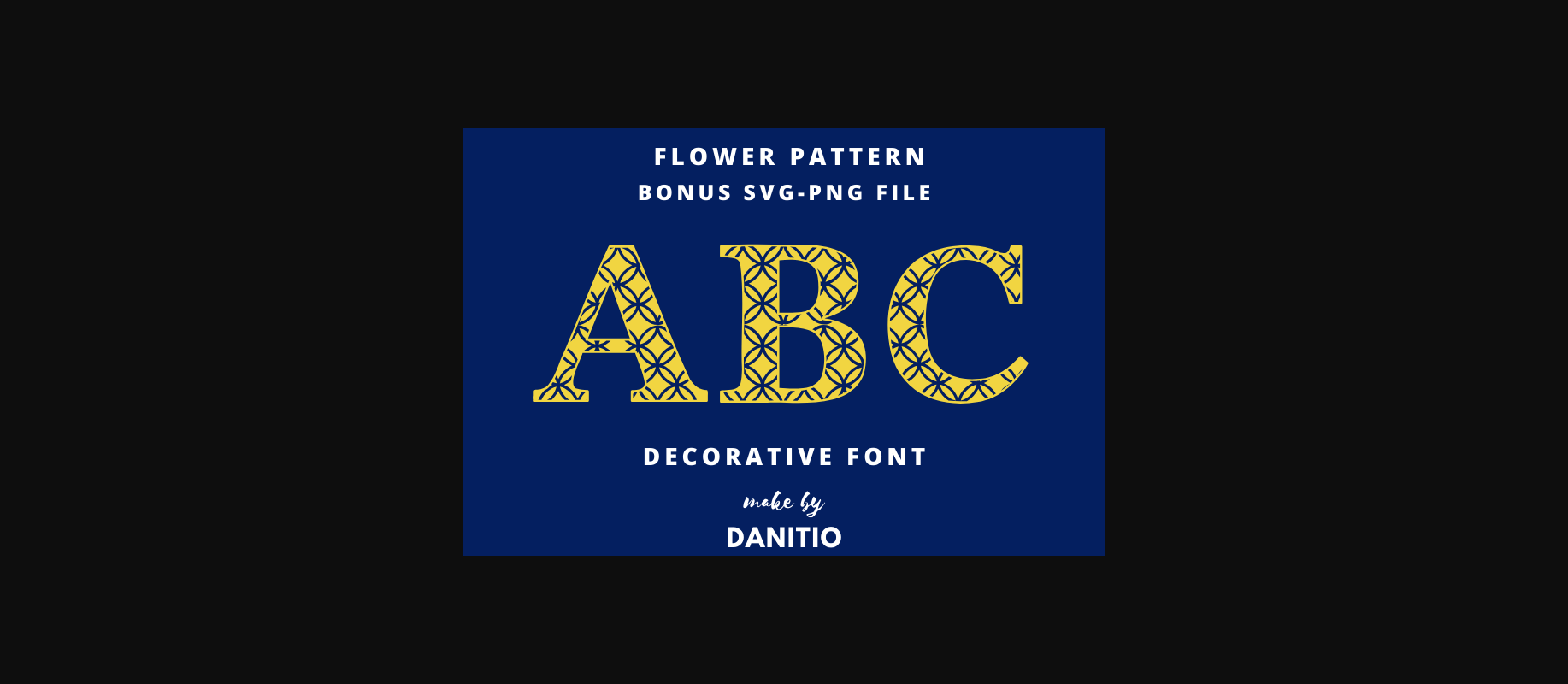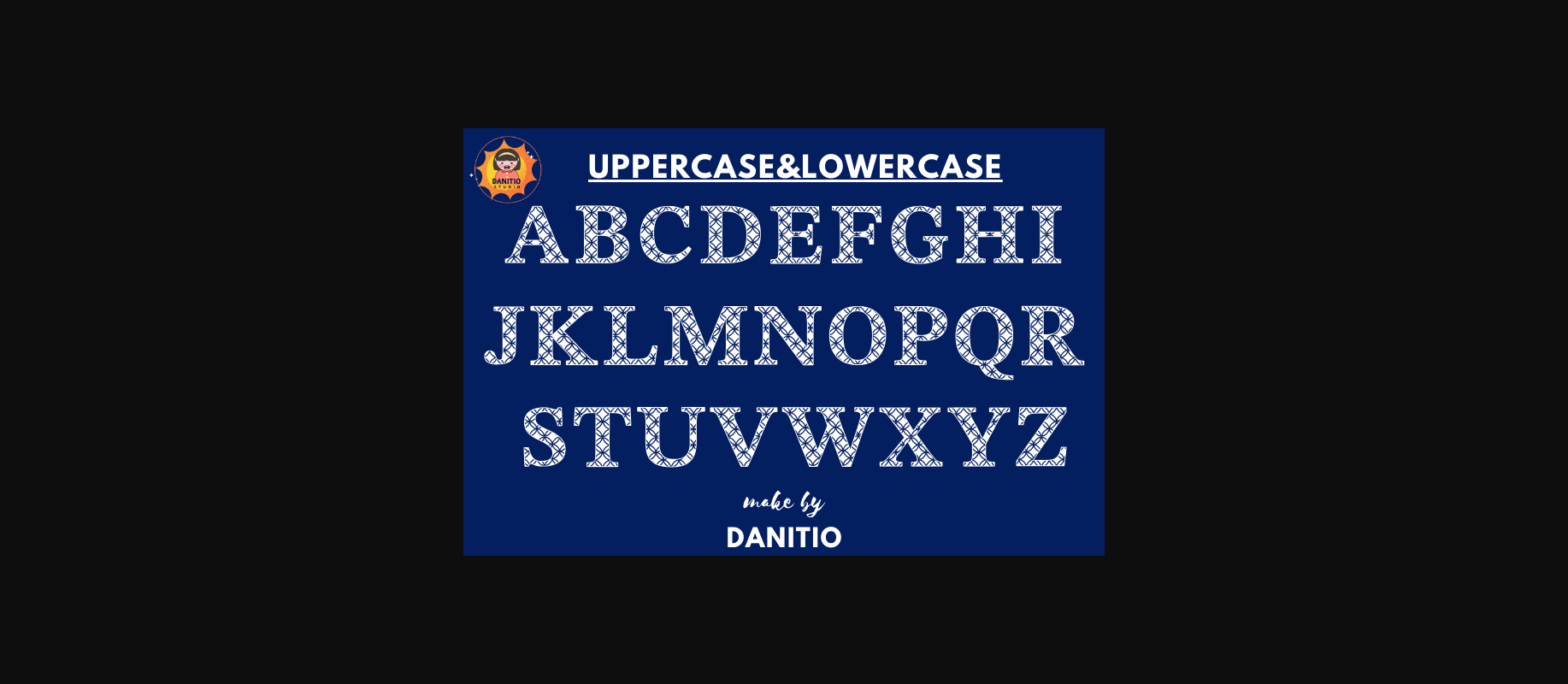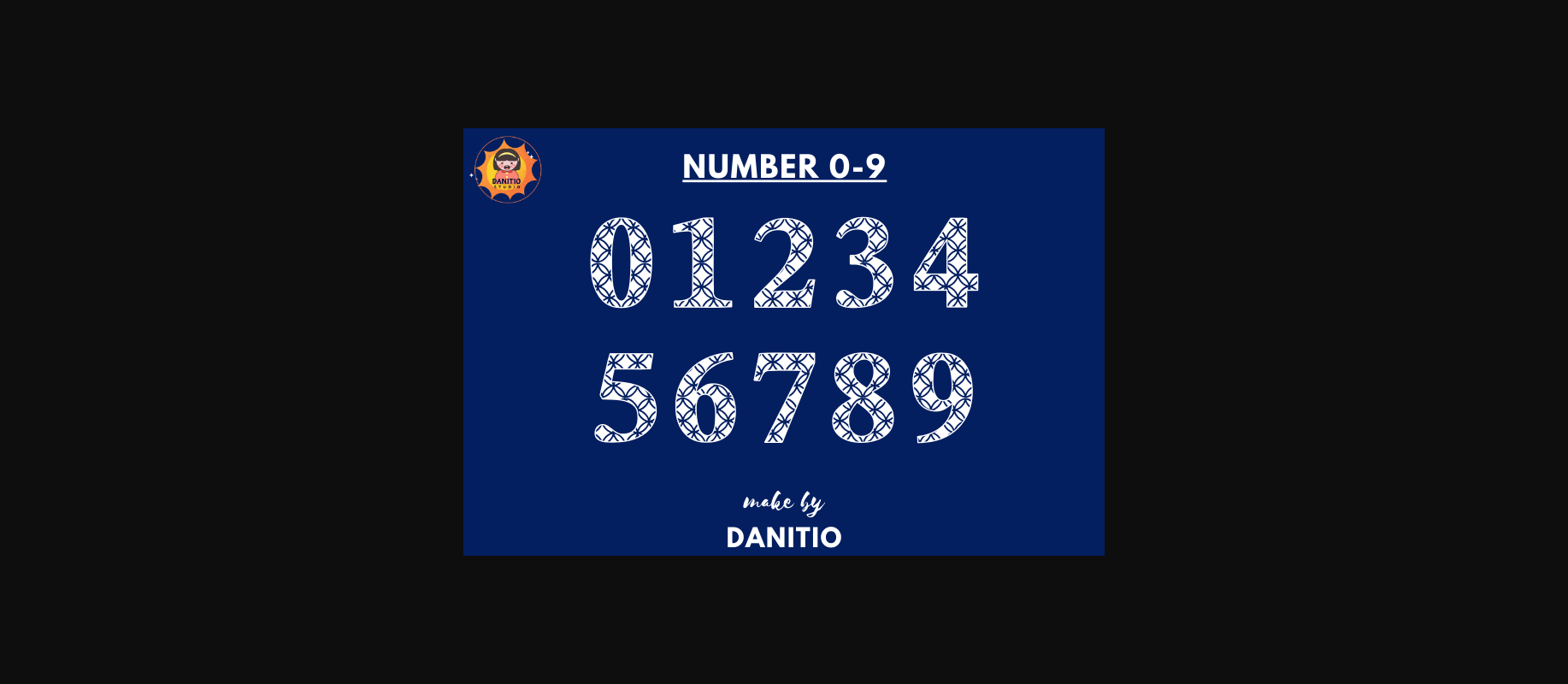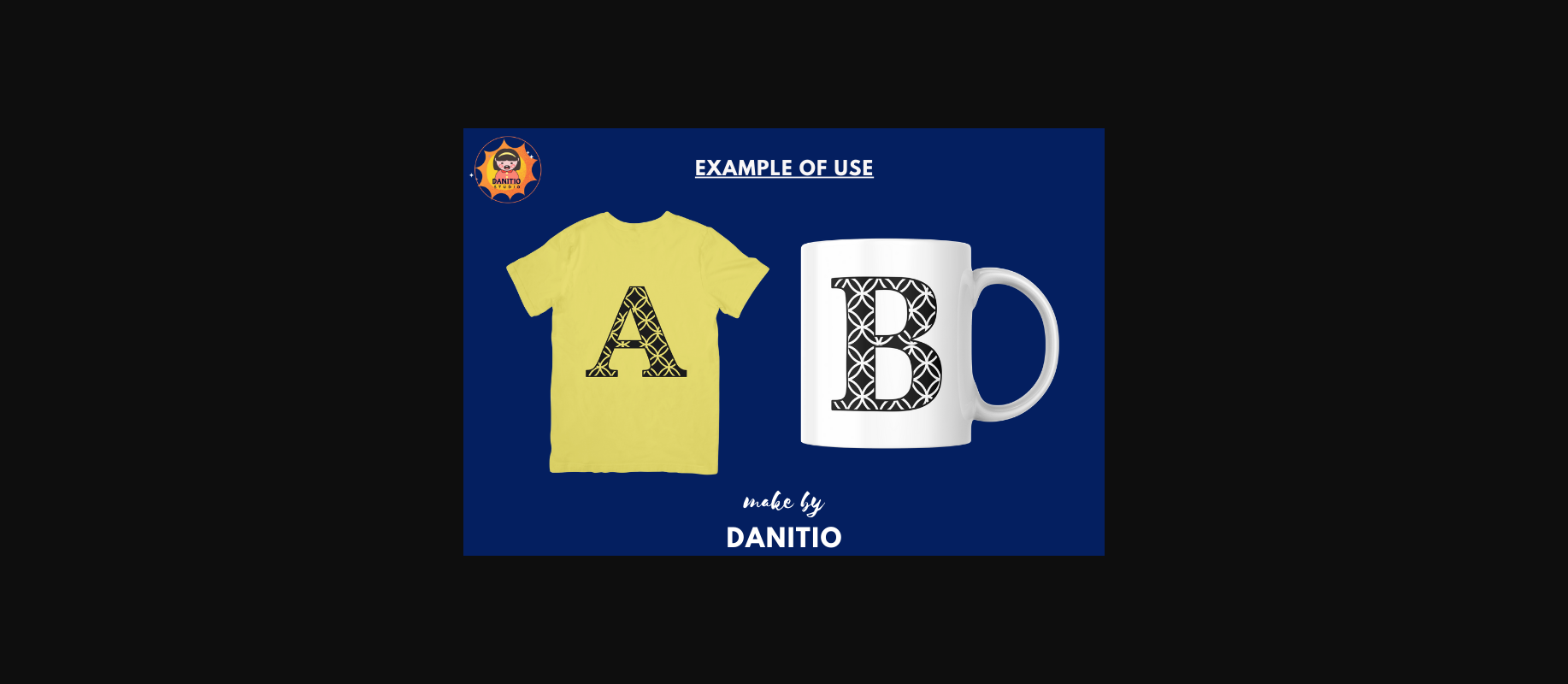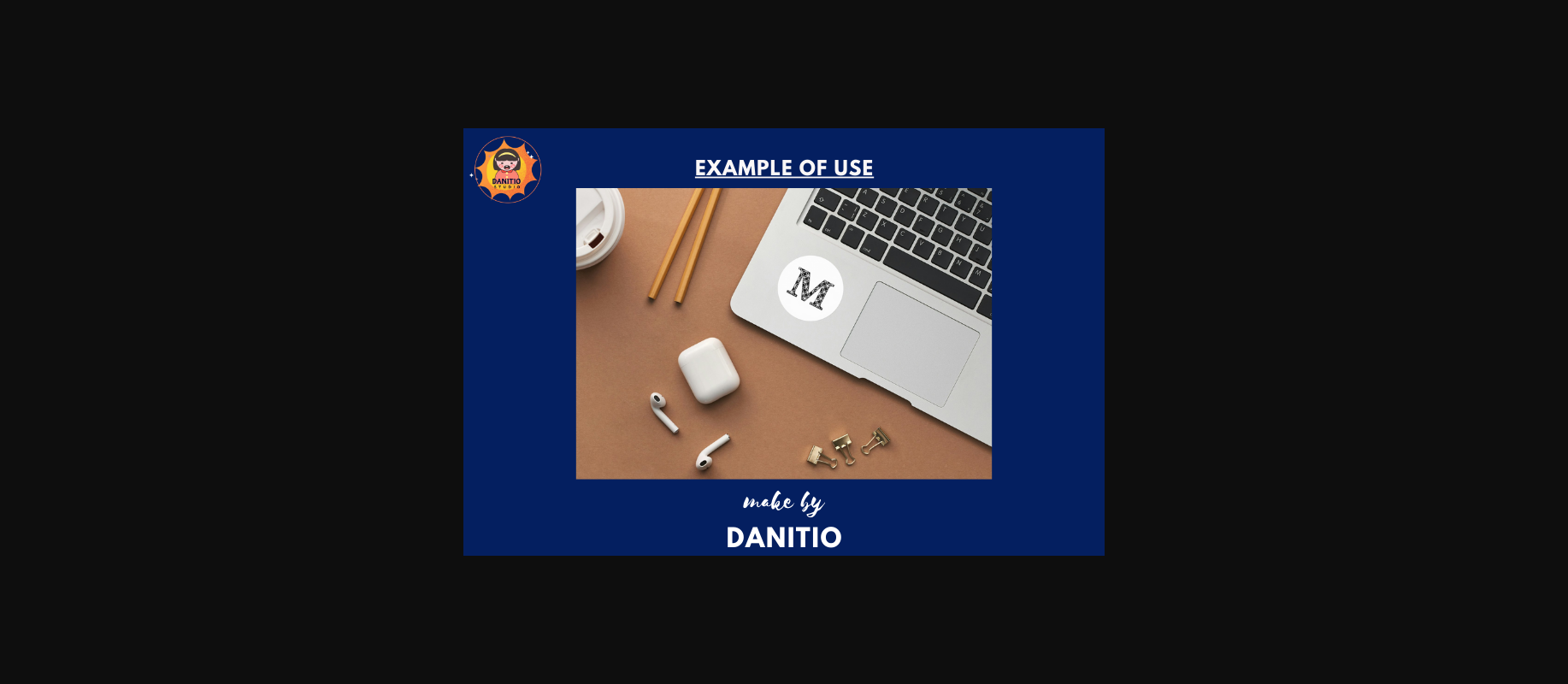
About Flower Pattern Font
The flower Pattern is a decorative font that is the perfect combination of charm and eccentricity. Intricate floral patterns combine to give every design a romantic touch. Perfect for wedding invitation cards, personal stationery, or party decorations. Incorporate products with grace and elegance that bloom.